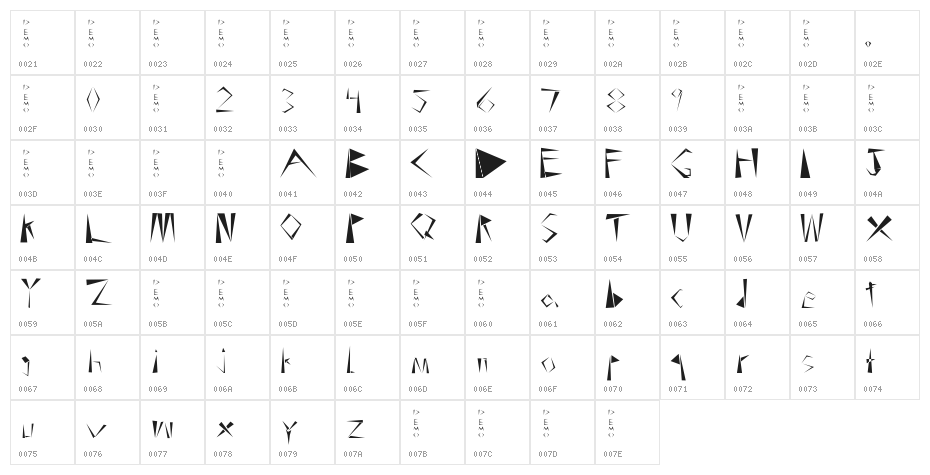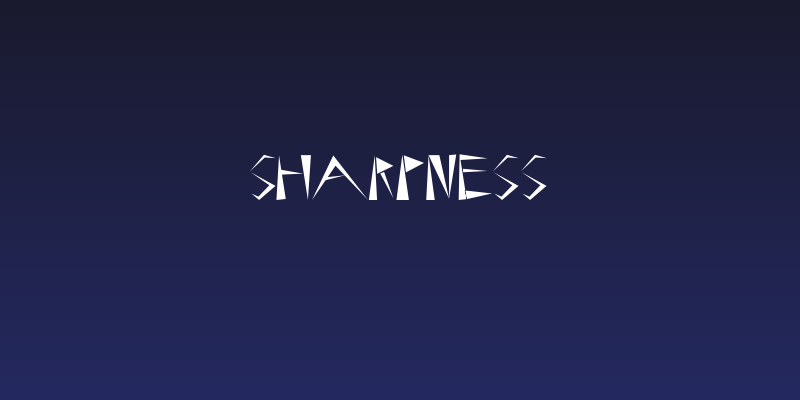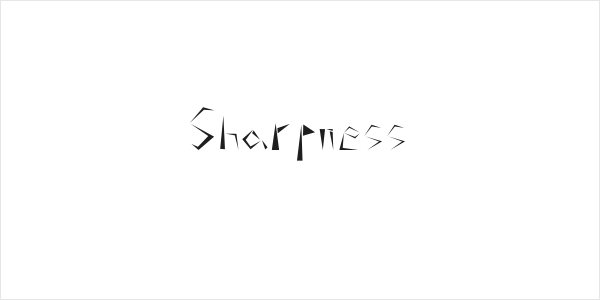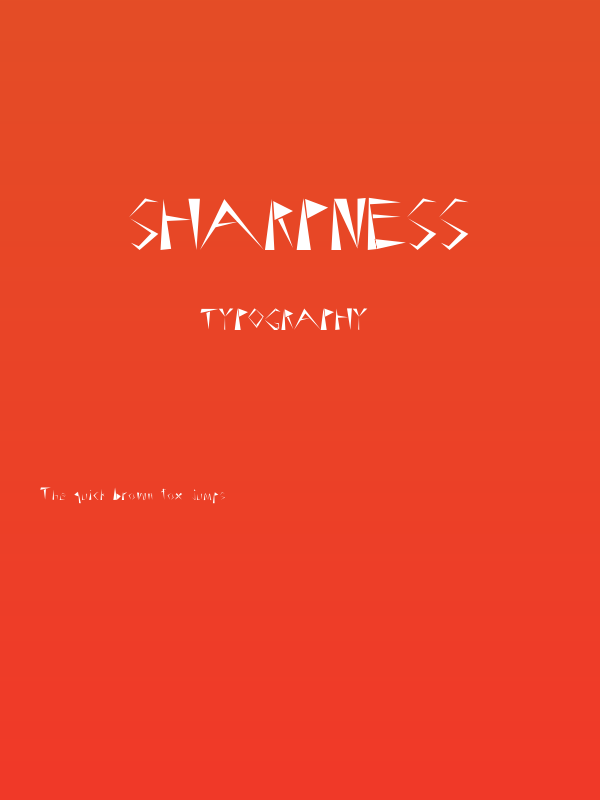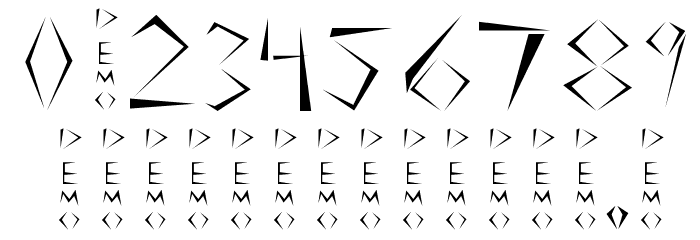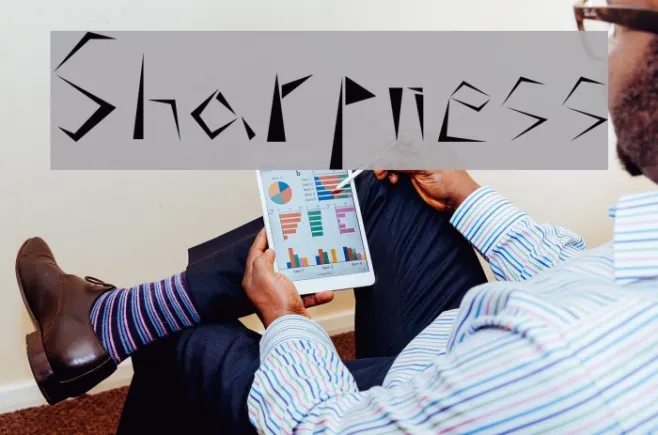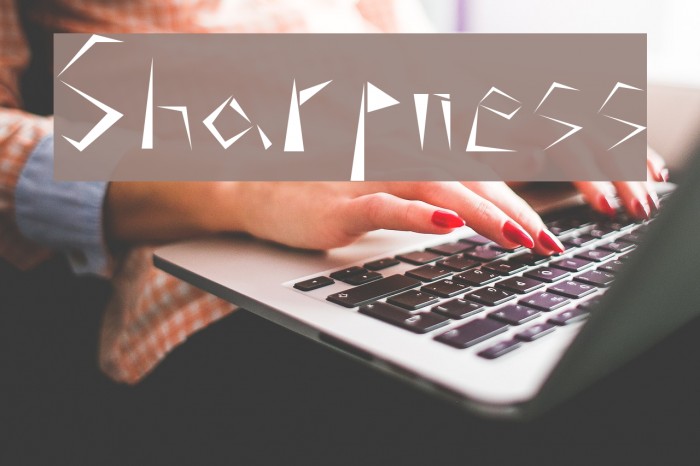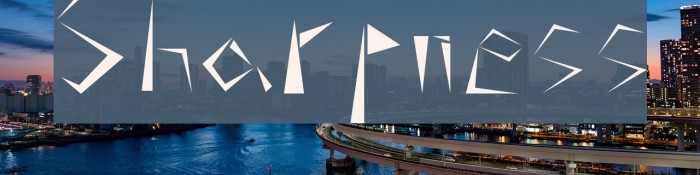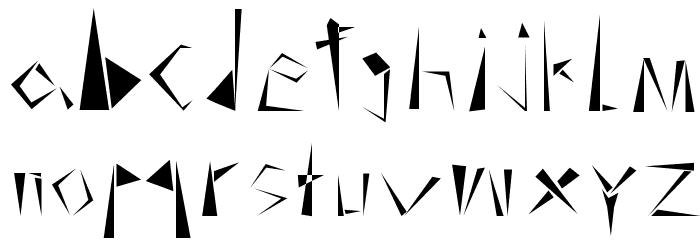
Sharpness Font
Sharpness Description
This font features a highly angular and geometric design, characterized by sharp, pointed edges and a bold, striking appearance. The letters are constructed with a mix of thick and thin strokes, creating a dynamic and edgy look. The uppercase and lowercase letters maintain a consistent style, with each character exhibiting a unique, abstract form. The numbers and special characters follow the same design principles, ensuring a cohesive visual identity. This font is ideal for projects that require a modern, avant-garde aesthetic, making it suitable for use in artistic and creative contexts.
SHARPNESS UPPERCASE
SHARPNESS LOWERCASE
SHARPNESS OTHER CHARS
| Use Case | Logos, Headlines, Artistic Designs |
| Proposed Projects | Ideal for modern art projects, edgy branding, album covers, and fashion editorials. |